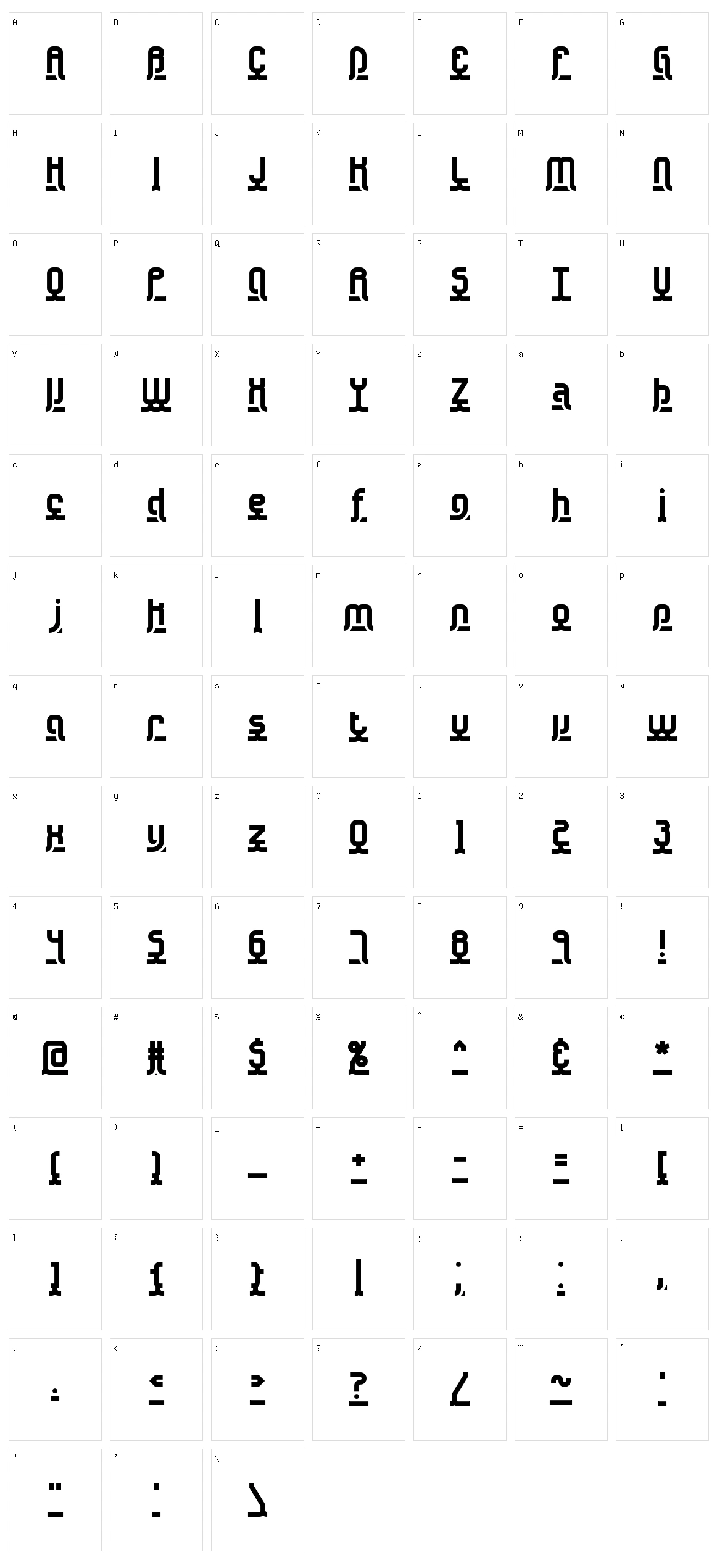
Underscore
Designed by: Ænigma
Underscore Created by Brian Kent
-Underscore
-Underscore 2 [without connectors on some characters]
Use the Underscore _ to continue the line under your words.
There are some alternative extra characters included in this font.